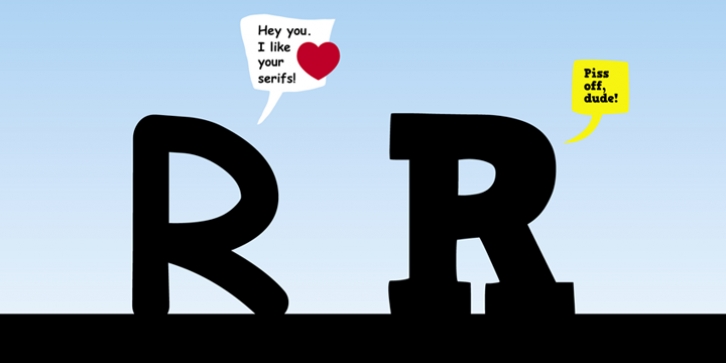
So many designers hate Comic Sans. They think people who don't know design are overusing this funny little friendly font, which is nearly every time out of place.
Some years ago, type designer Hannes von Döhren created a free alternative to Comic Sans. The difference: It has serifs and a much cooler look.
The big success of the HVD Comic Serif pushed Von Döhren to create a Pro Version with an eastern, central and Western European language support.
“The HVD Comic Serif should spread all over and make the world a little bit better.” says Hannes.